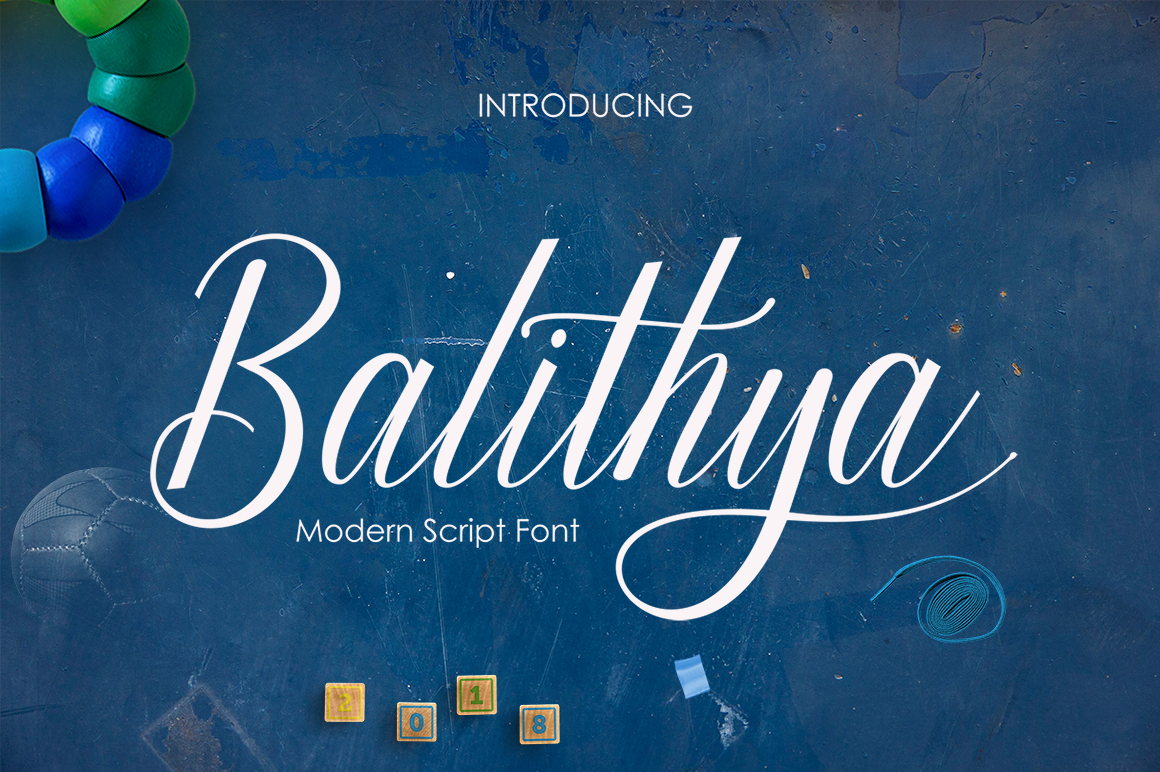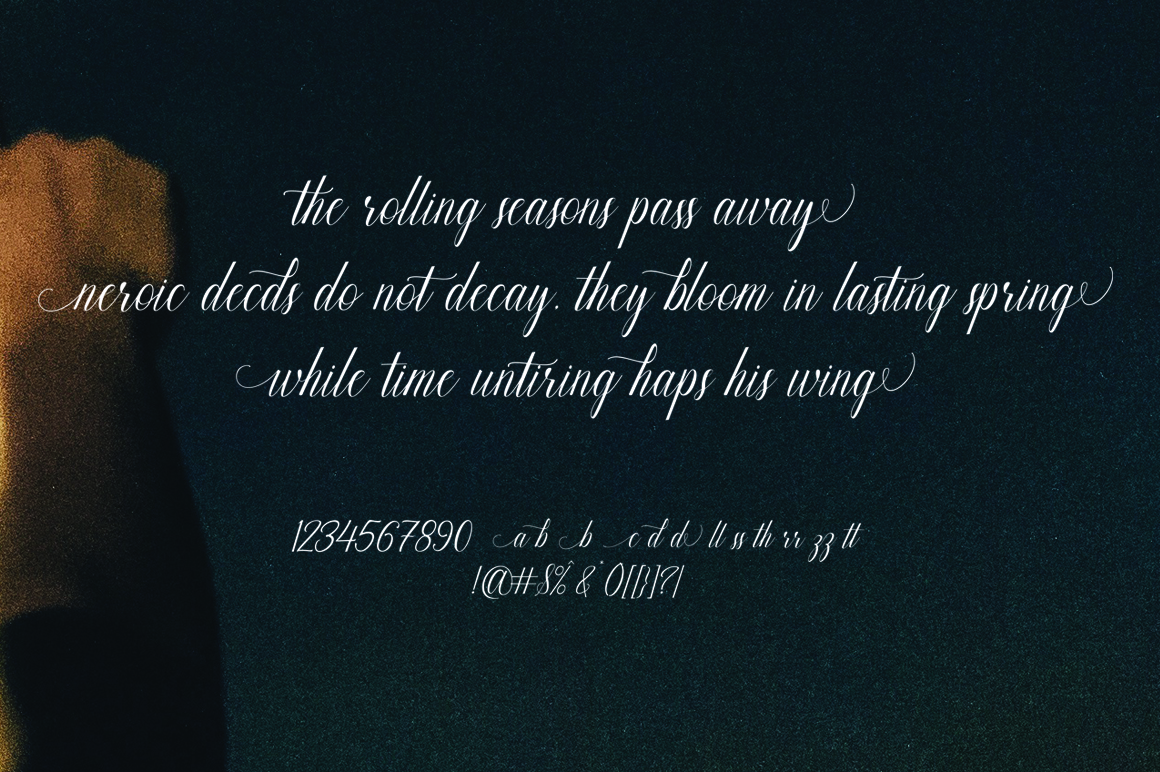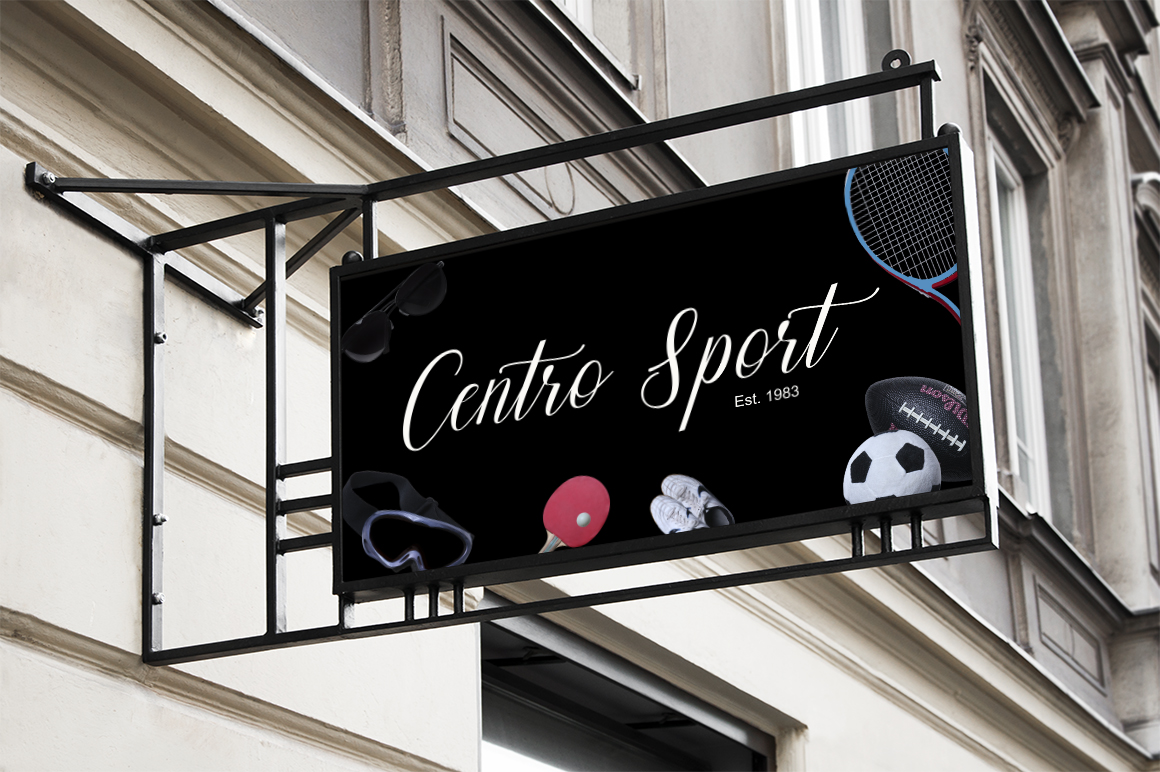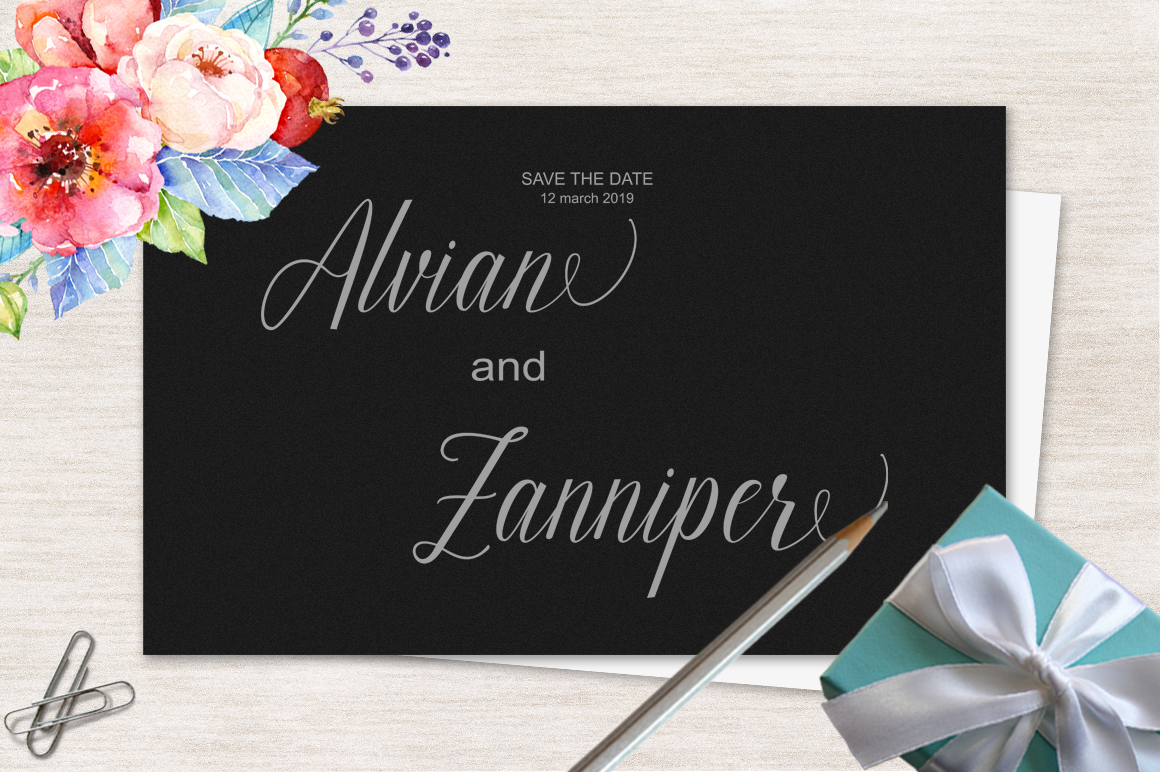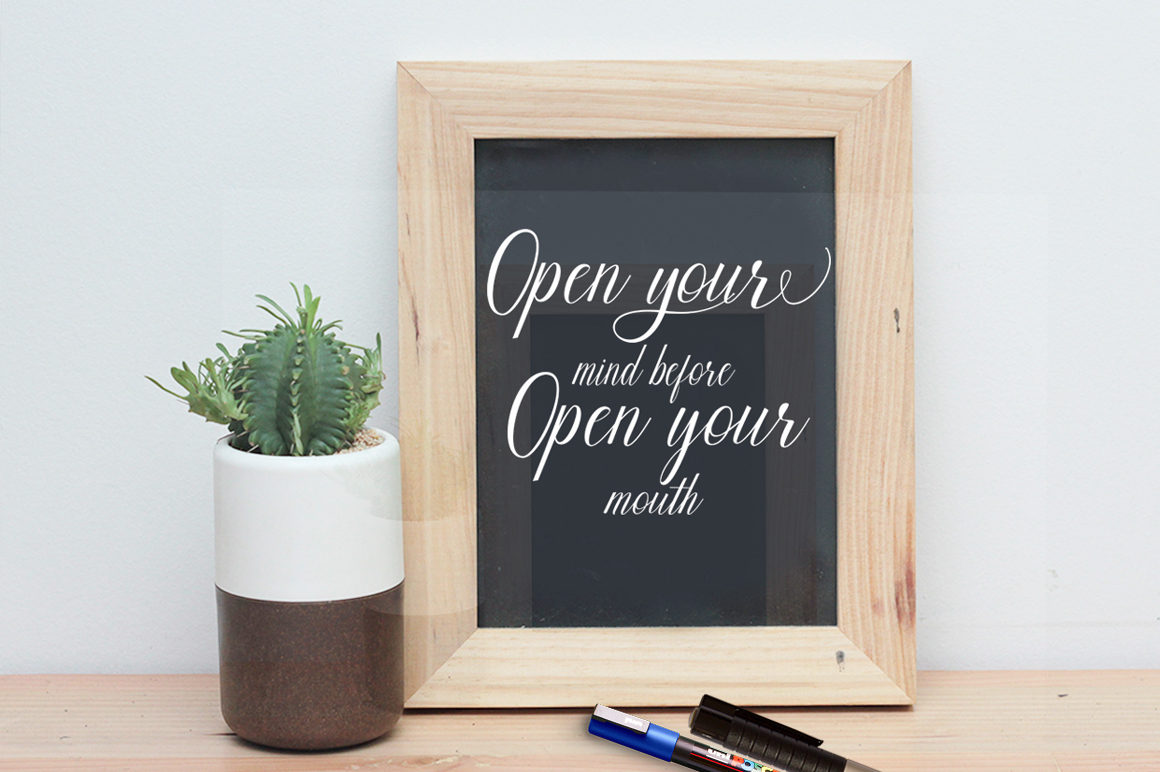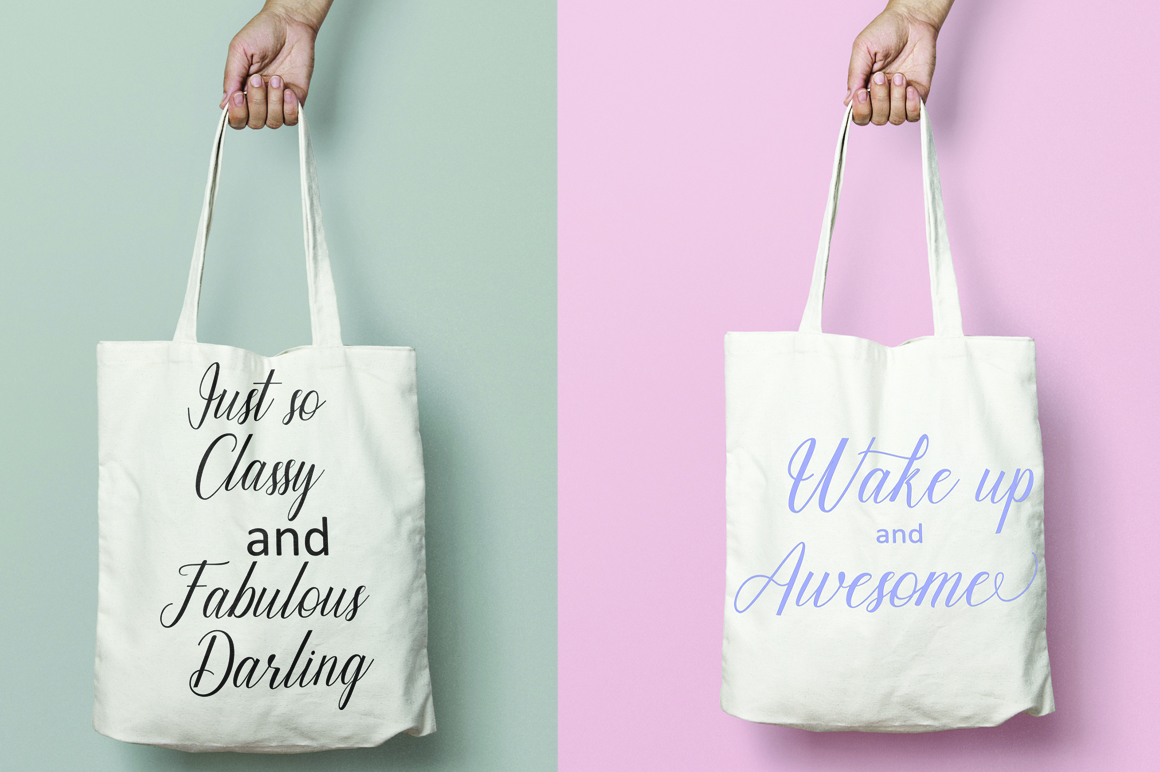
Balithya Font
About Balithya Font
Balithya is an elegant and refined script font, crafted through calligraphy with beautiful waves and flows. With tons of alternates and swashes, Balithya is an ideal font for creating unique yet romantic creative projects.